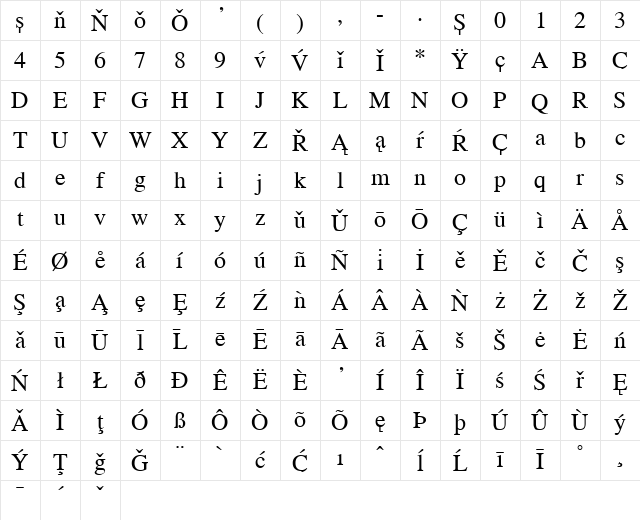
PCATimes Regular
Design Context for PCATimes
PCATimes is a composed and adaptable typeface that performs quietly and consistently across a wide range of design contexts.
Pro Tip: Use PCATimes in both headline and body roles to test its range before committing to a single application.